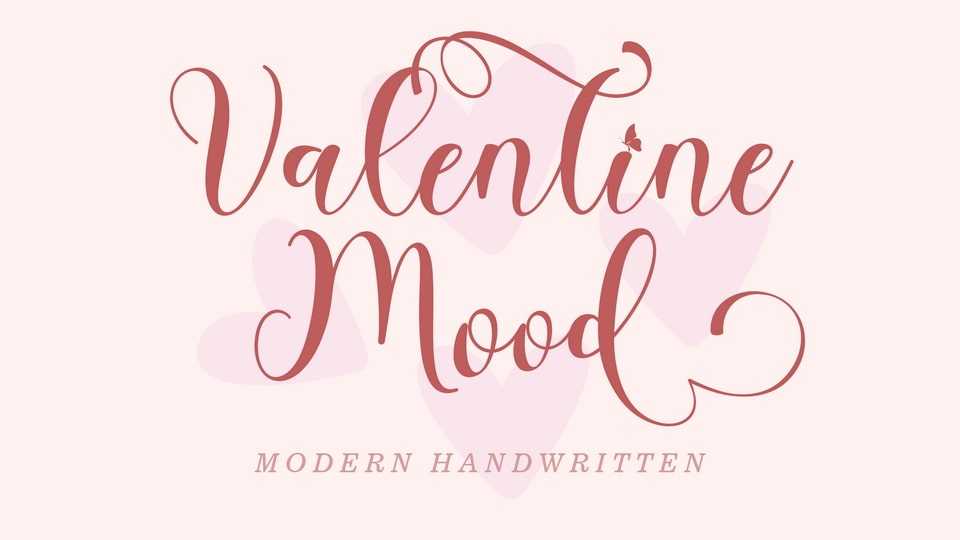
Download Valentine Mood font, a lovely and attractive script that has beautiful swashes and ligatures that add a touch of elegance to any design. Its graceful curves, delicate lines, and playful swirls create an eye-catching look.
Designer: Selvia Design